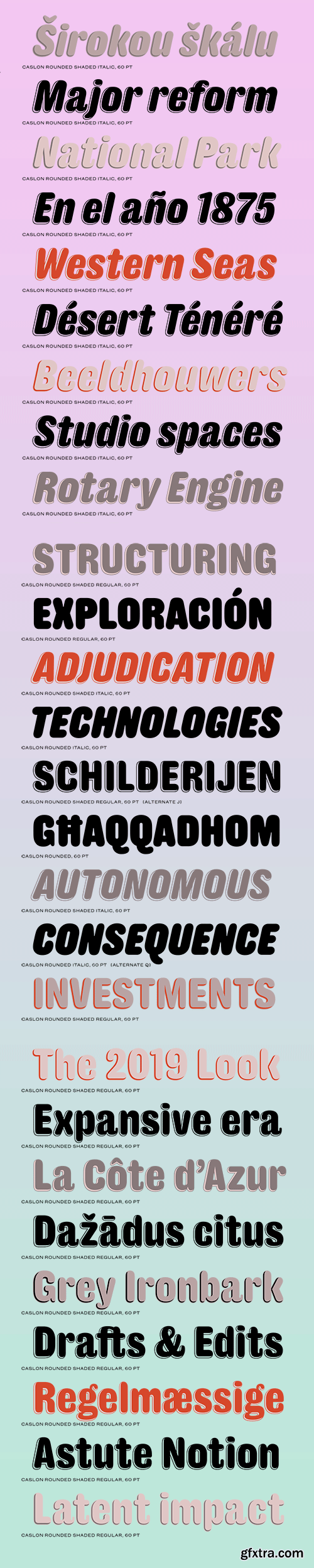
Caslon Rounded Font Family
With its oval like terminals, Caslon Rounded is a characterful sans display face. A variant of the condensed sans form that had been introduced in the 1830s to great success. With the ability to get as many characters in a line as possible, the condensed sans remains a staple of graphic designers today. In 1836, Caslon introduced a rounded style, the first of its kind, giving the form a warmer, almost humourous appearance as if inflated like a balloon, that seems more typical of the next century. Later they added an inline and ornamented version. In this new version, a lower case and italic variant have been added, fitting seamlessly with the original. With its playful and joyous appearance, Caslon Rounded is a design suited for all manner of applications, from graphic design, editorial design through to logos.